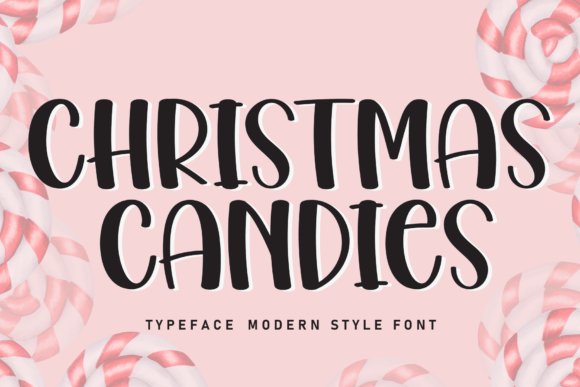
Looking for the perfect font to add some sweetness and fun to your designs? Look no further than Christmas Candies Font! This captivating script font, created by Strongkeng Old, is the ultimate choice for anyone seeking the best font for a Halloween sign or any other design project that needs a touch of charm.
Christmas Candies Font is a sweet and friendly handwritten display font that will instantly captivate your audience. Its playful and adorable appearance is sure to evoke a sense of joy and excitement. Whether you're designing wedding invitations, greeting cards, or any creative project, this font will infuse your work with a delightful and fun-loving spirit.
Crafted with utmost care, Christmas Candies Font is designed to make your text stand out and leave a lasting impression. Its unique handwritten style adds a personal touch to your designs, making them truly one-of-a-kind. With this font, you can create eye-catching headlines, titles, and captions that will grab attention and draw people in.
What sets Christmas Candies Font apart is its versatility. It seamlessly blends elegance with a playful touch, making it suitable for a wide range of design purposes. Whether you're aiming for a whimsical Halloween sign, a cheerful birthday card, or a charming logo, this font adapts effortlessly to your needs.
The beauty of Christmas Candies Font lies not only in its aesthetic appeal but also in its functionality. It is designed with legibility in mind, ensuring that your text remains clear and readable even at smaller sizes. This makes it perfect for various applications, such as website content, blog posts, or social media graphics.
Embrace the joyous spirit of Christmas Candies Font and let your creativity soar. Its emotional impact is undeniable, as it brings a sense of warmth and happiness to any design. Whether you're a professional graphic designer or an enthusiastic hobbyist, this font will elevate your creations and leave a lasting impression on your audience.